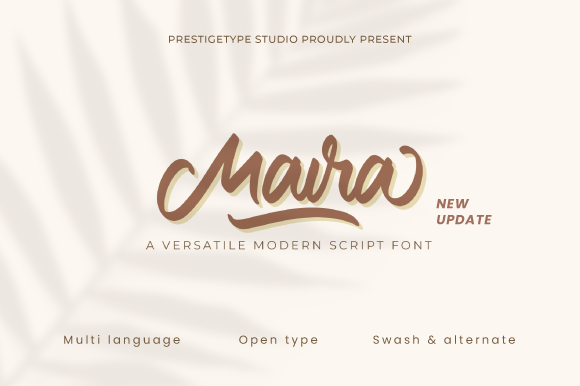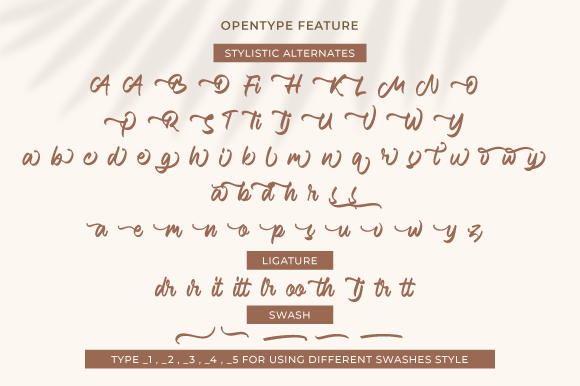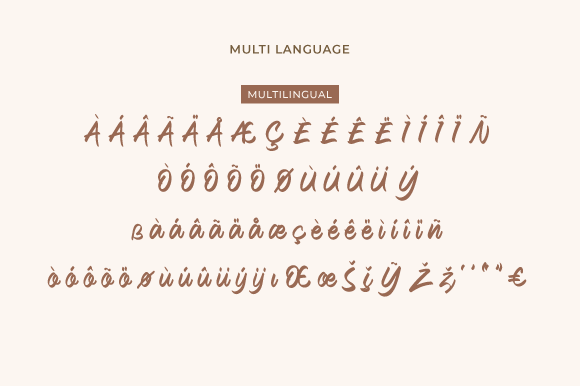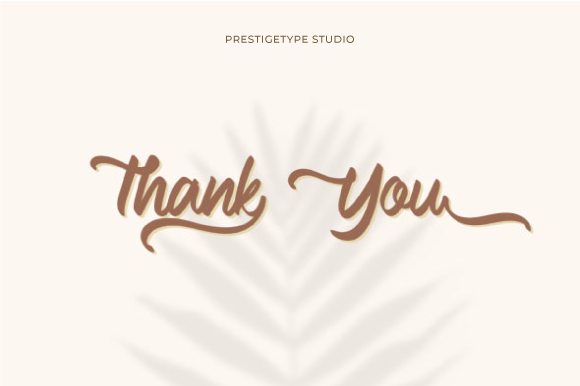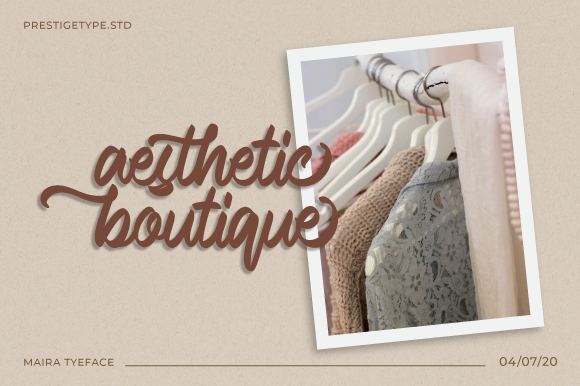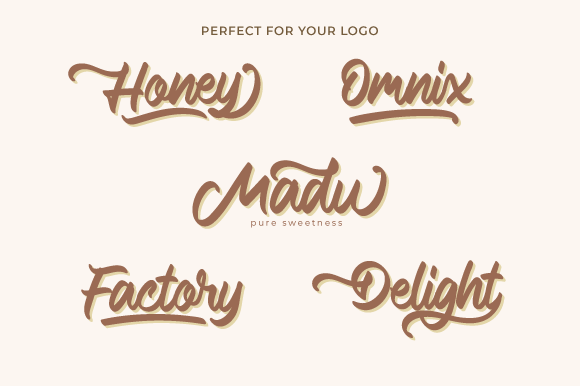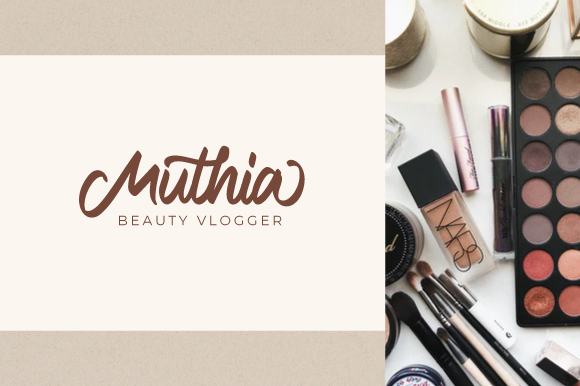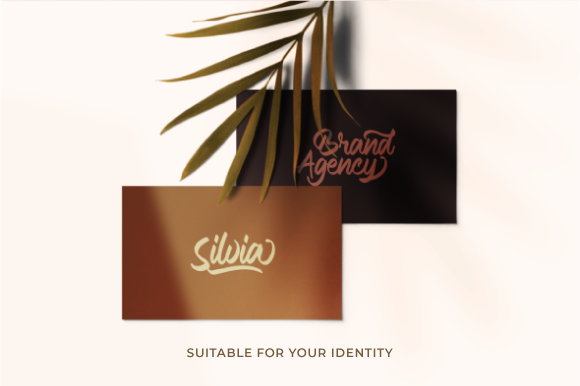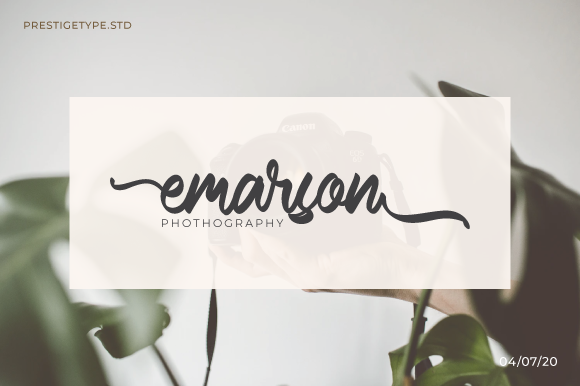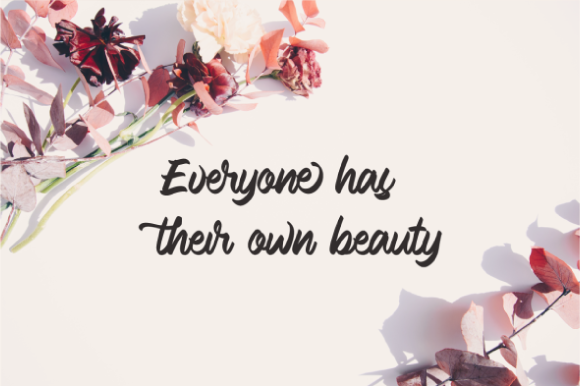
Maira Font
About Maira Font
Maira is a beautiful and versatile script font. This stunning font is a stylish homage to classic calligraphy. Fall in love with its authentic feel and use it to create gorgeous wedding invitations, beautiful stationary art, eye-catching social media posts, and cute greeting cards.